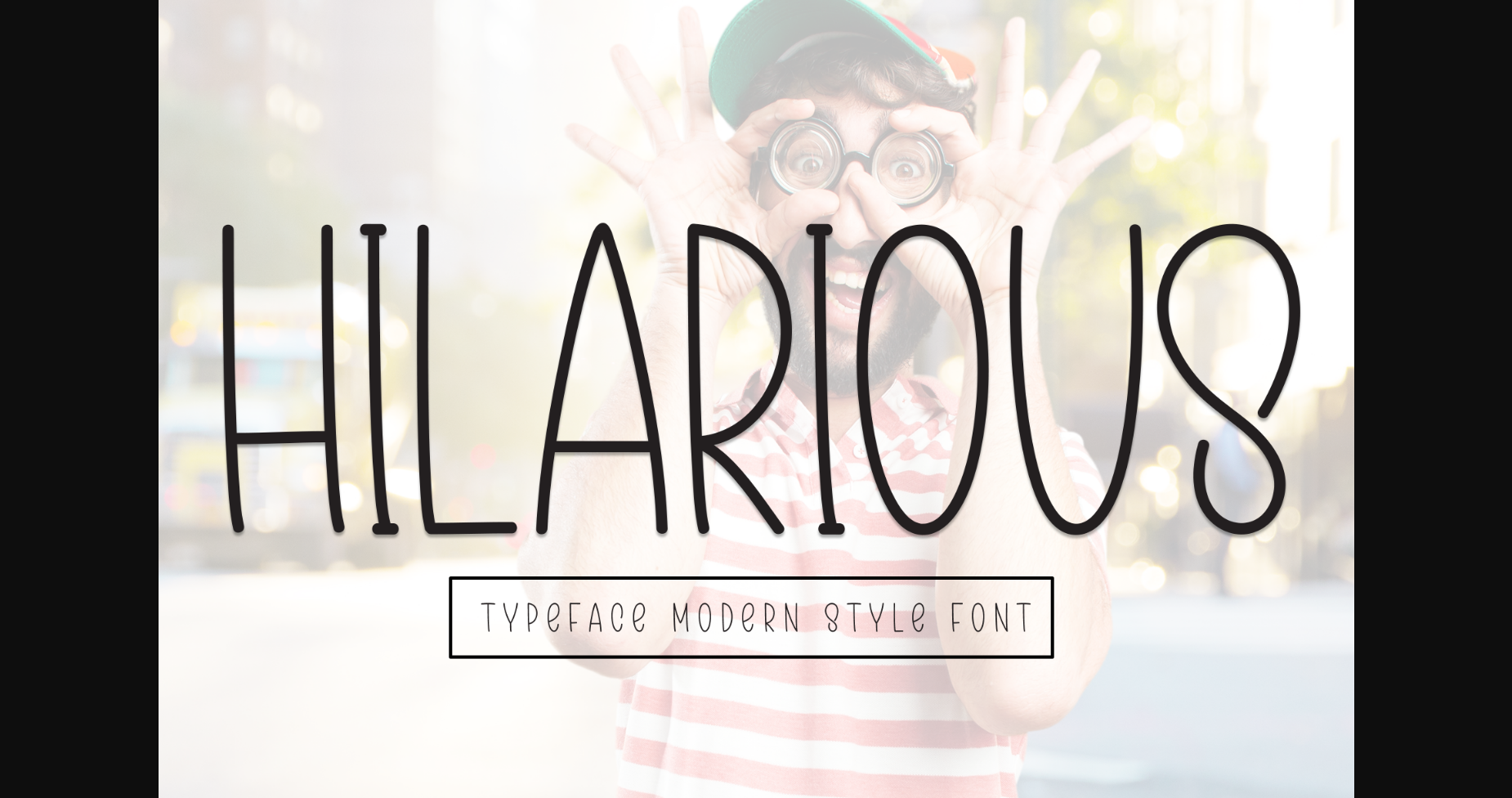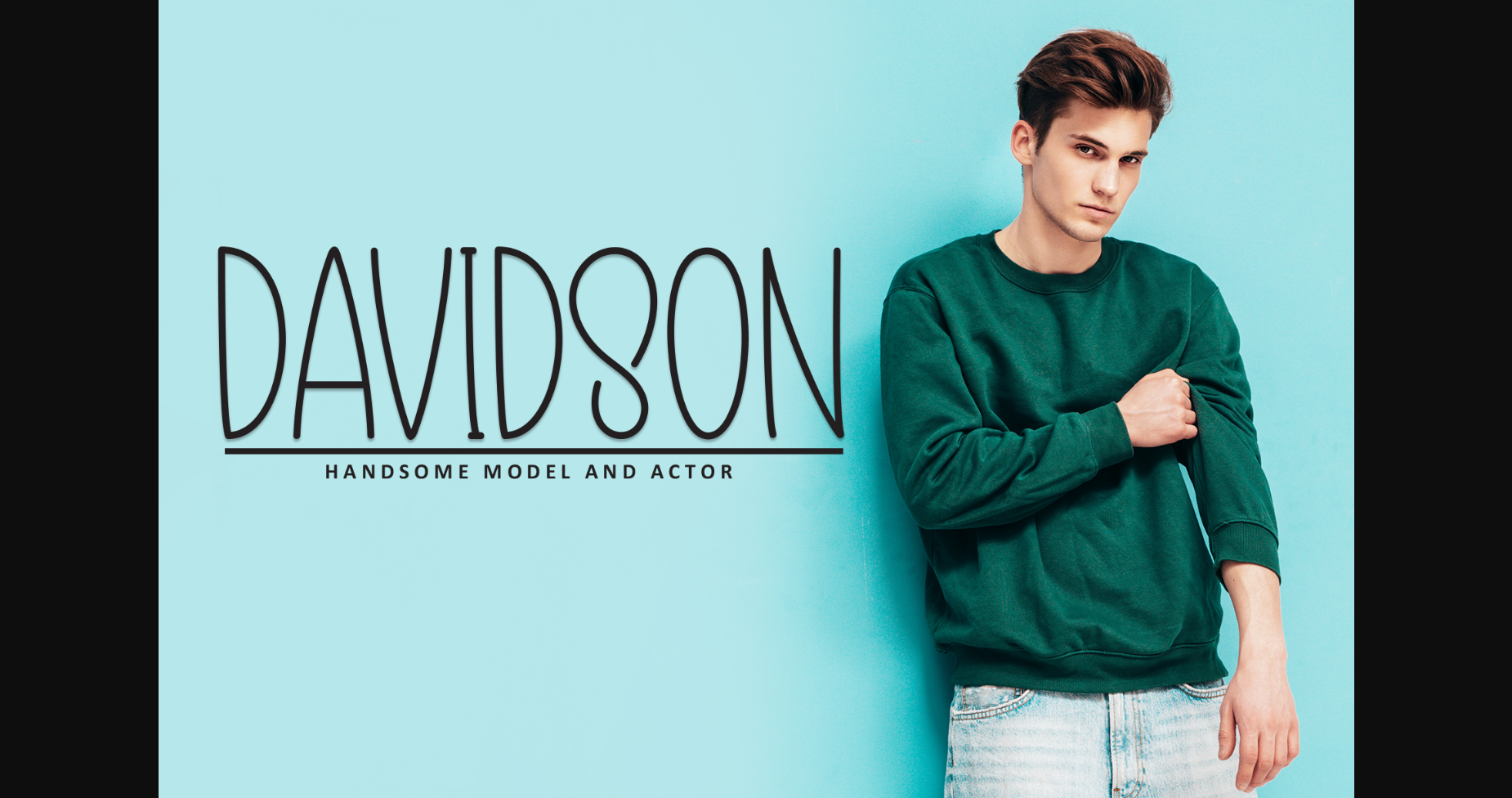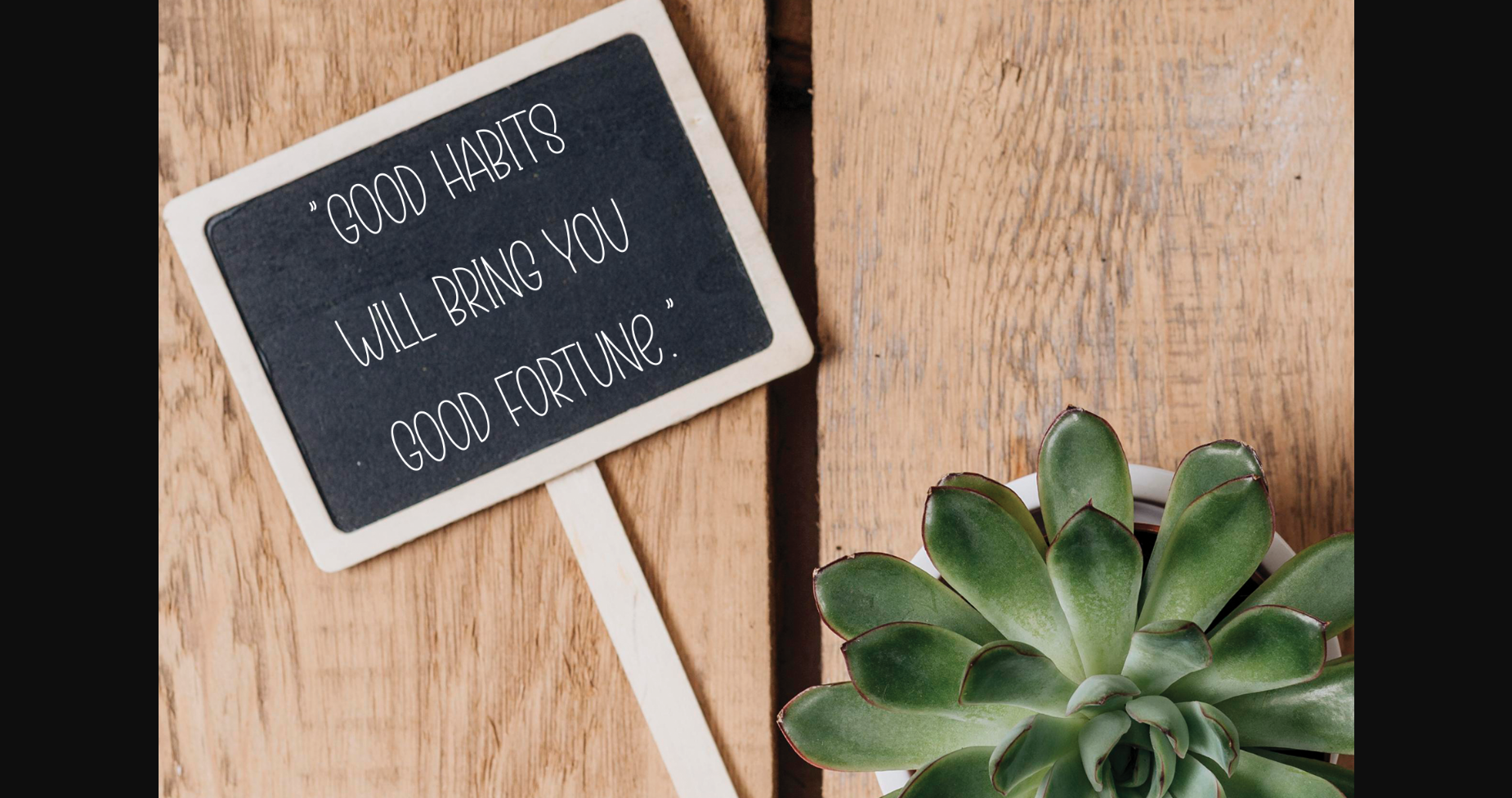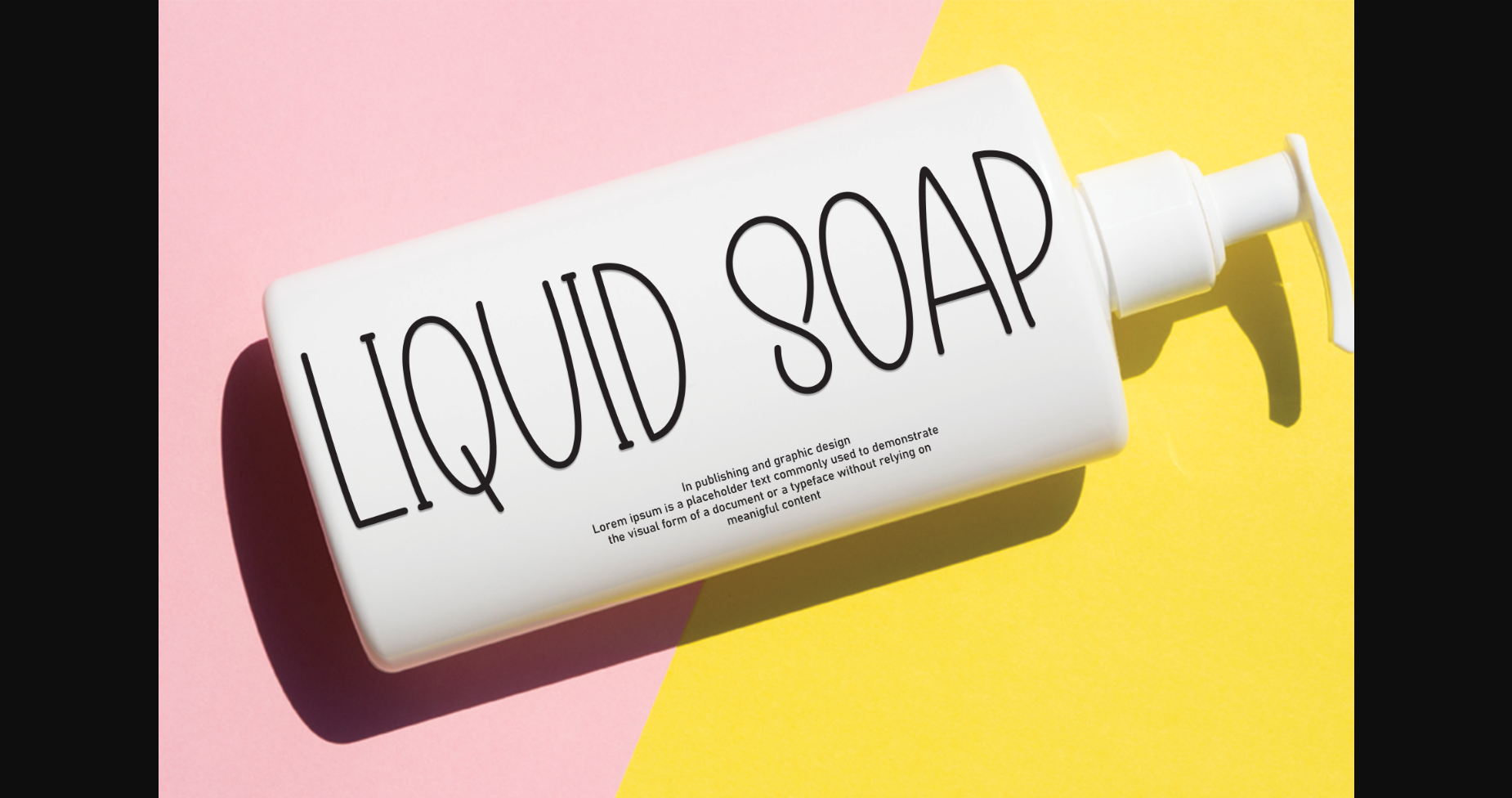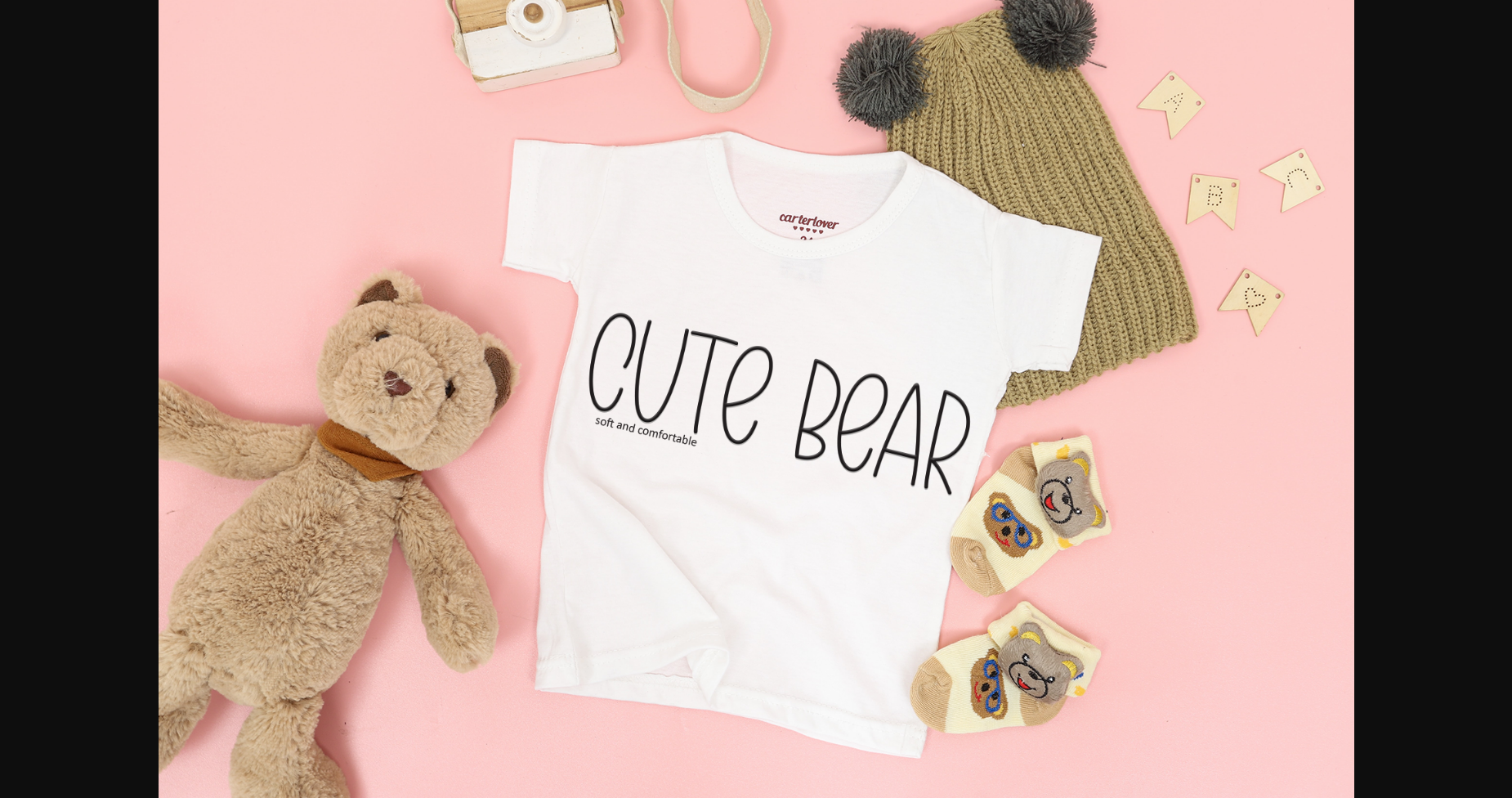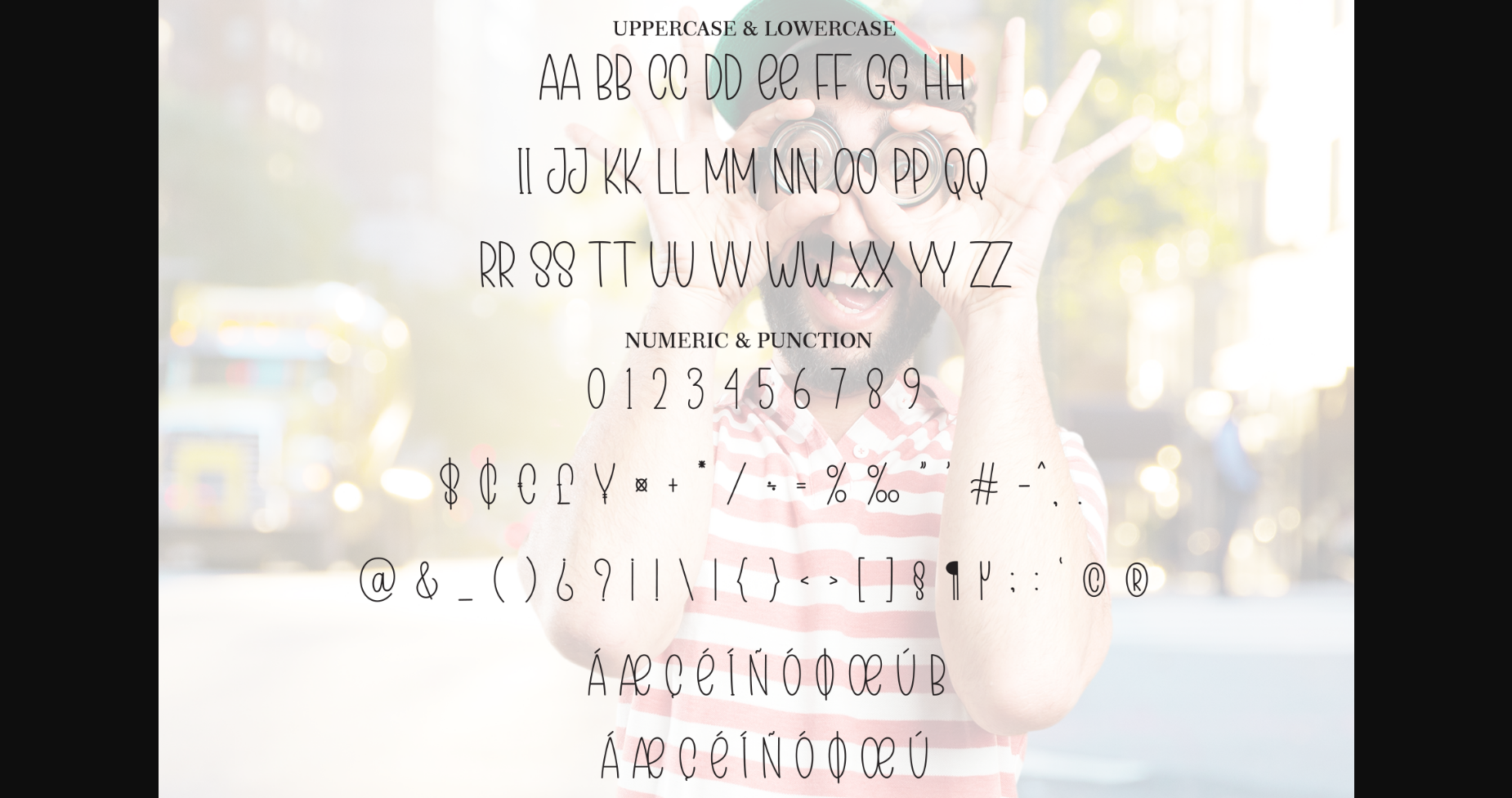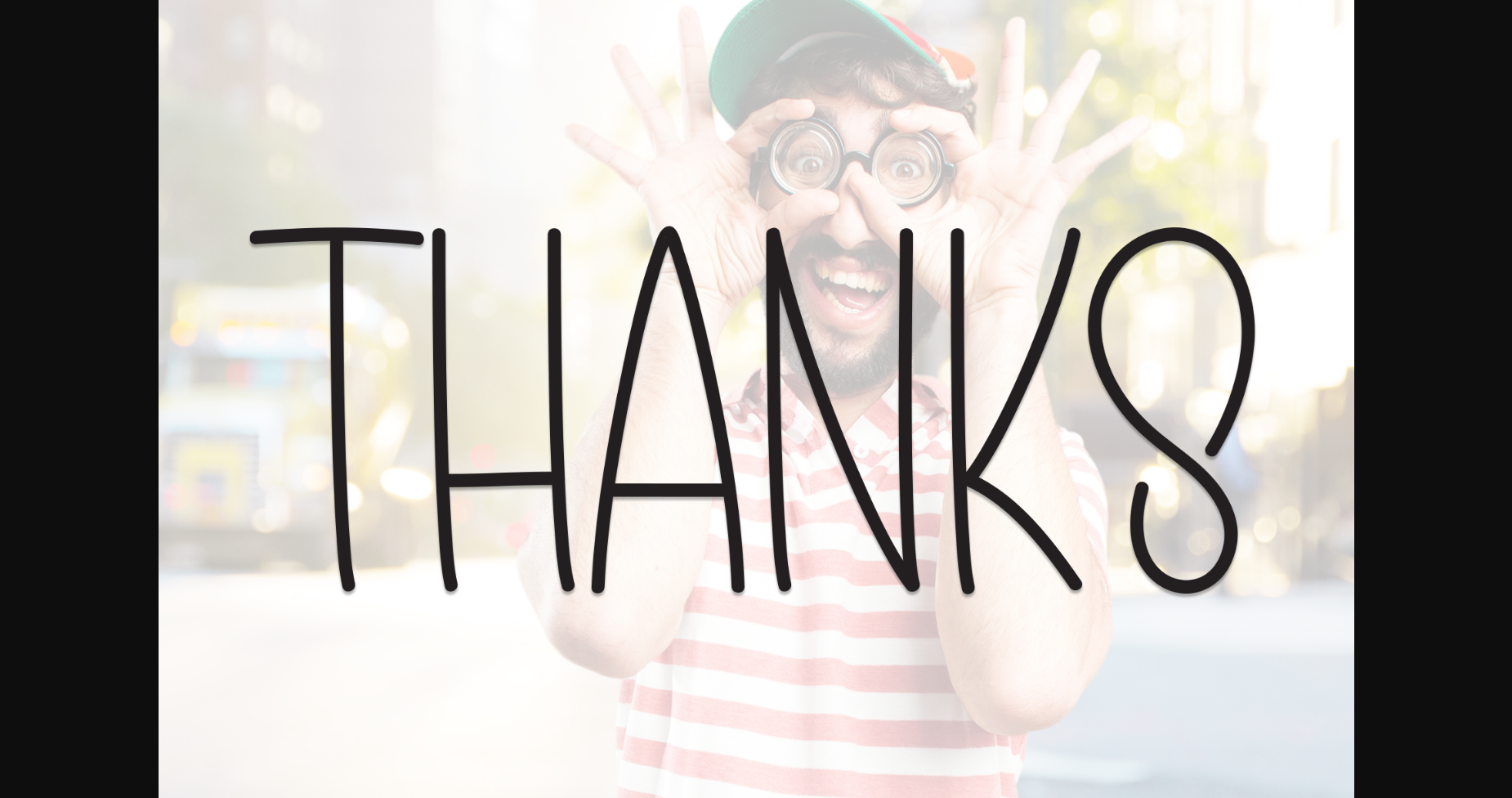
Hilarious Font
About Hilarious Font
Hilarious is a sweet and friendly handwritten font. Fresh and neat, this font is ideal for writing wedding invitations, cards, or any other design that might need a fun touch.